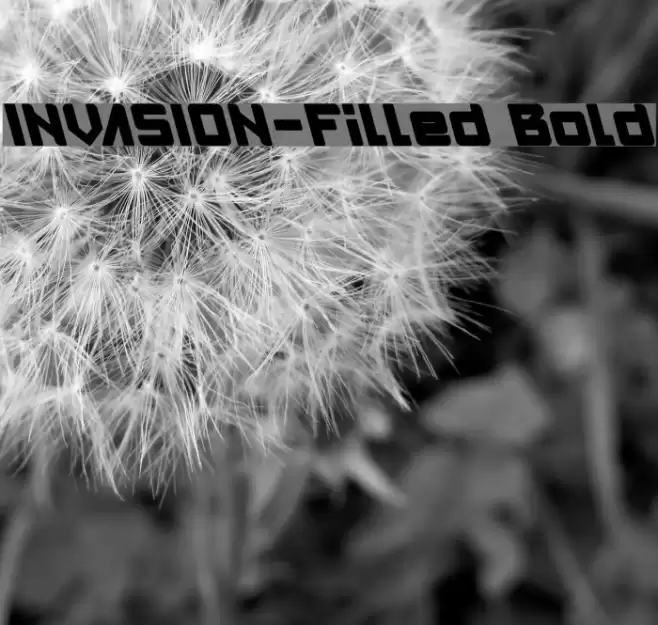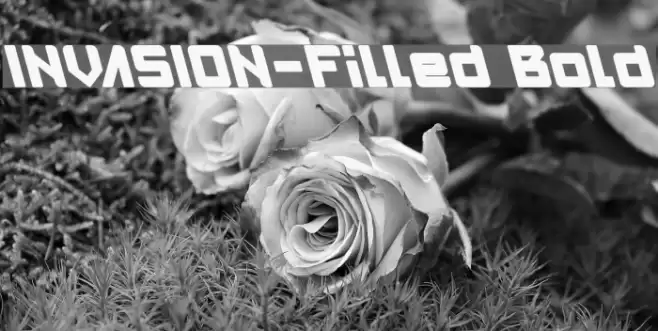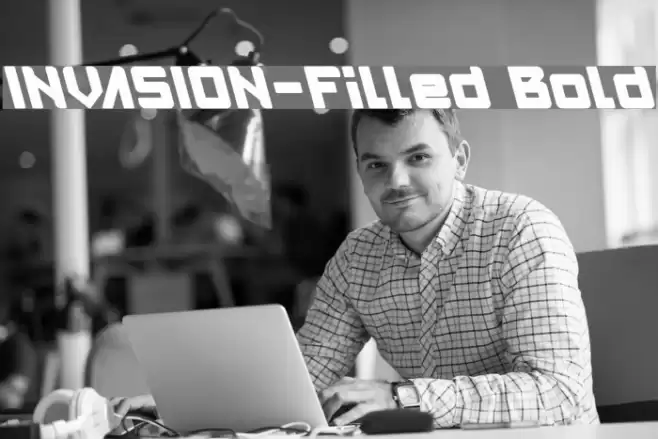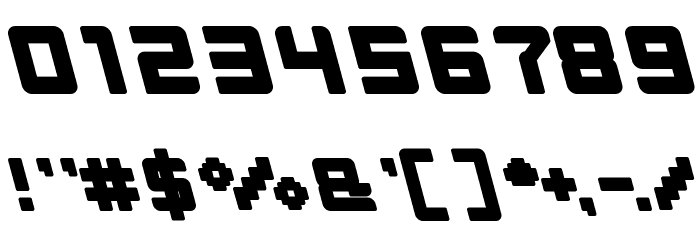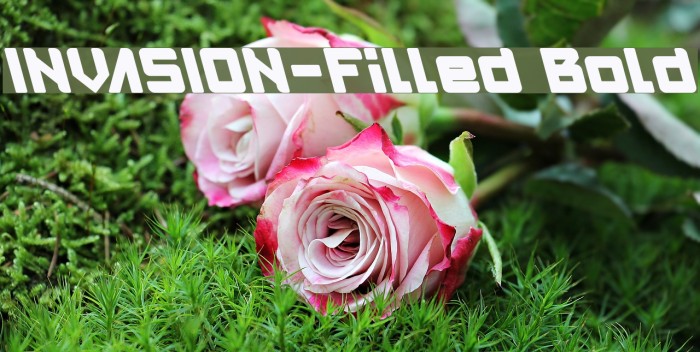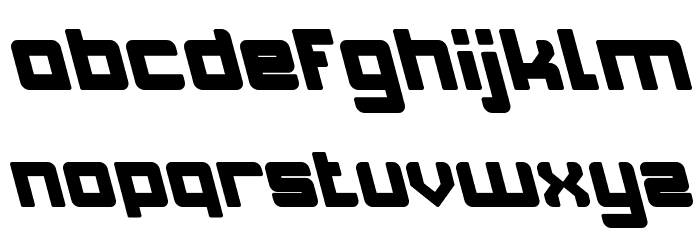
INVASION-Filled Bold Font
INVASION-Filled Bold Description
This font features a bold, futuristic design with a filled, blocky appearance. The characters are uniformly thick, providing a strong and impactful visual presence. The angular and geometric shapes give it a modern and tech-inspired look, making it suitable for digital and sci-fi themed projects. The uppercase and lowercase letters maintain a consistent style, with slight variations in curvature and angles. The numerals and special characters complement the overall design, ensuring a cohesive appearance across all elements.
A bold, futuristic font with a filled, blocky design and geometric shapes from Uncategorized fonts.
- Proposed Projects: Ideal for tech-themed branding, sci-fi movie posters, video game titles, and digital artwork.